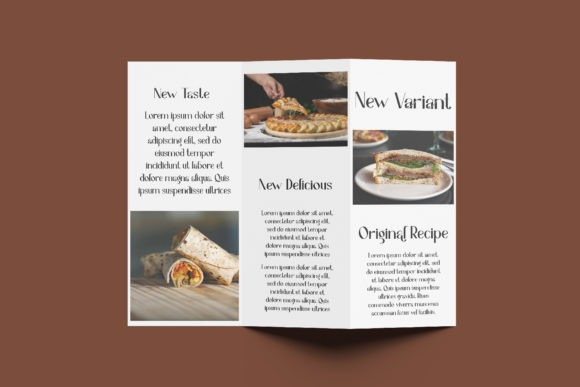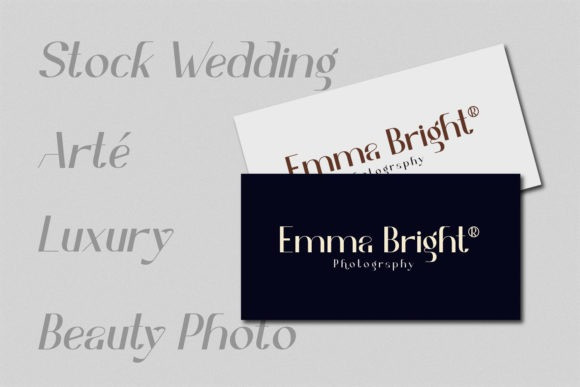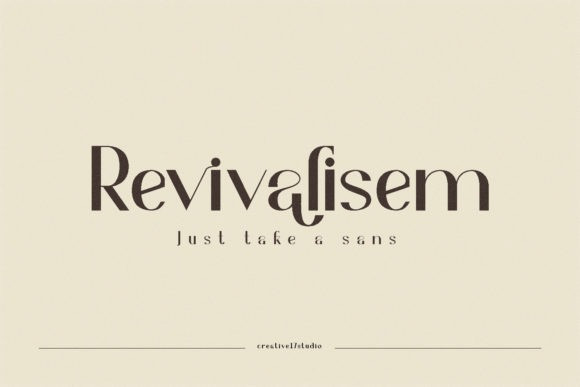
Revivalisem Sans Serif Font
Revivalisem is an incredibly elegant and classy sans serif font. Fall in love with its incredibly versatile style and use it to create gorgeous wedding invitations, beautiful stationary art, eye-catching social media posts, and much more!